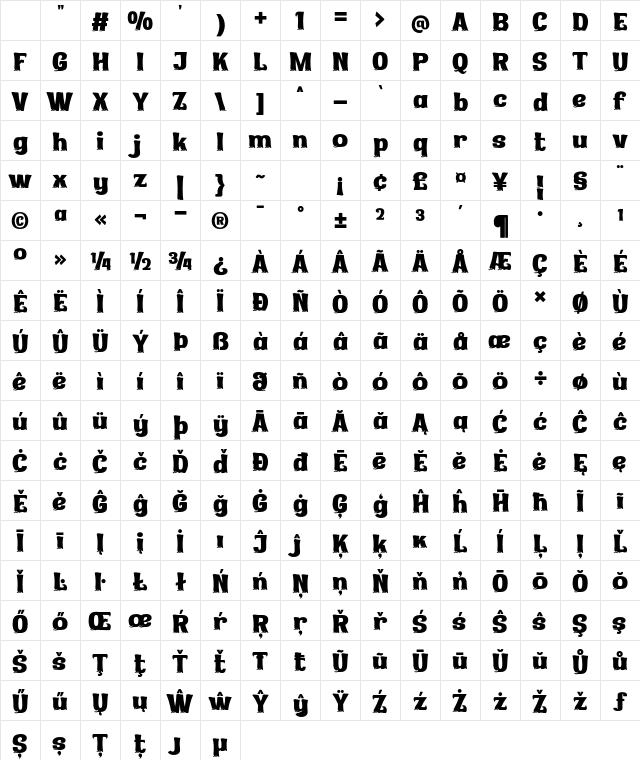
Complete Refhdisav Trial Variation Regular glyph index. Displaying only characters natively supported by Refhdisav Trial Variation Regular font.
Refhdisav Trial Variation is a composed and adaptable typeface that performs quietly and consistently across a wide range of design contexts.